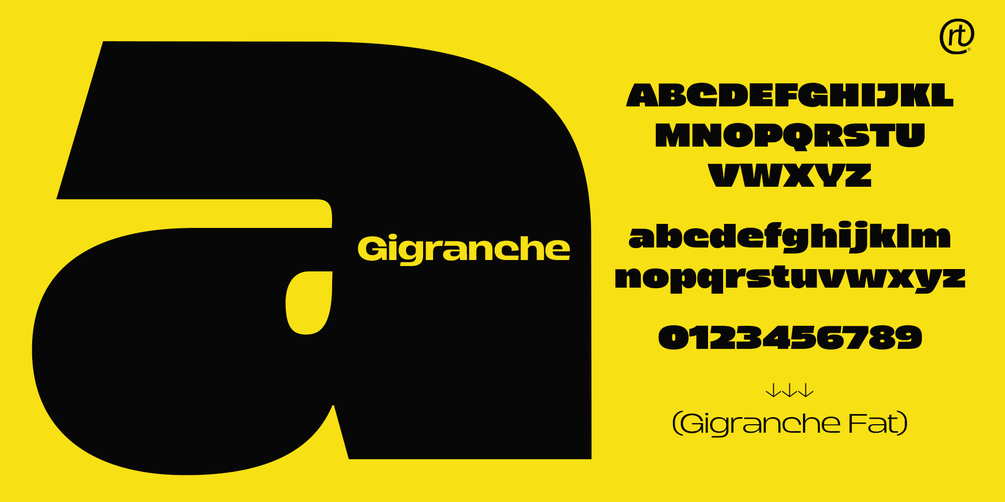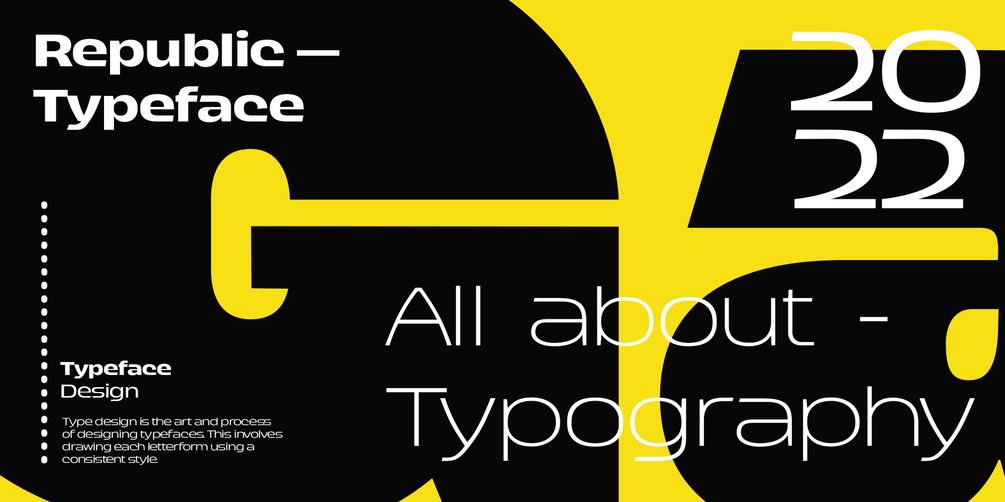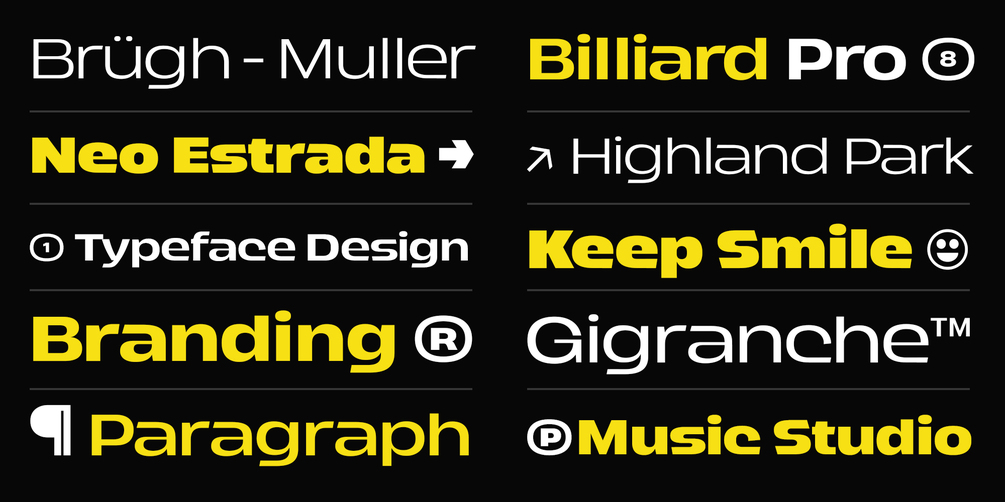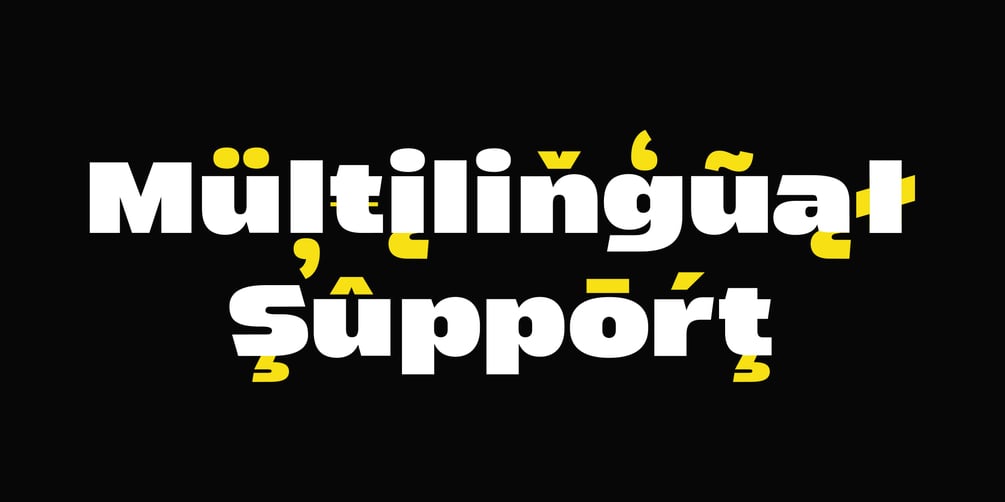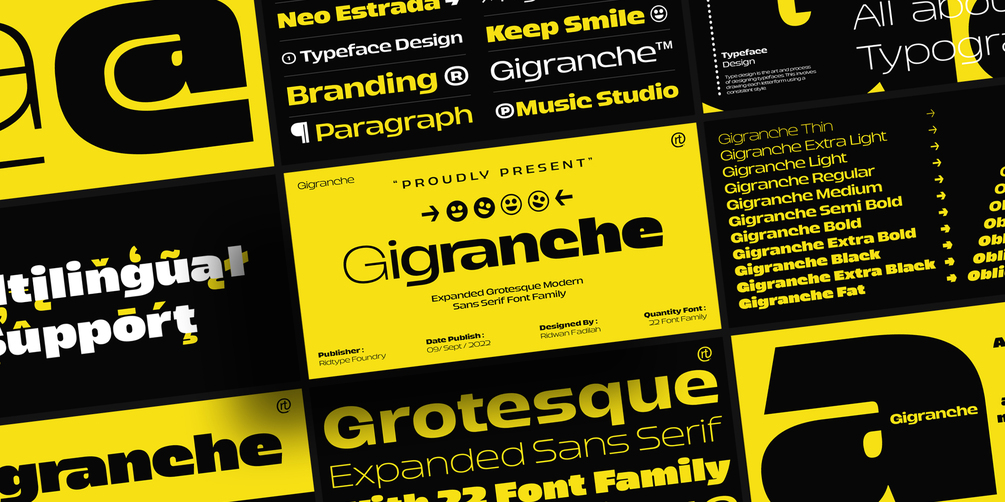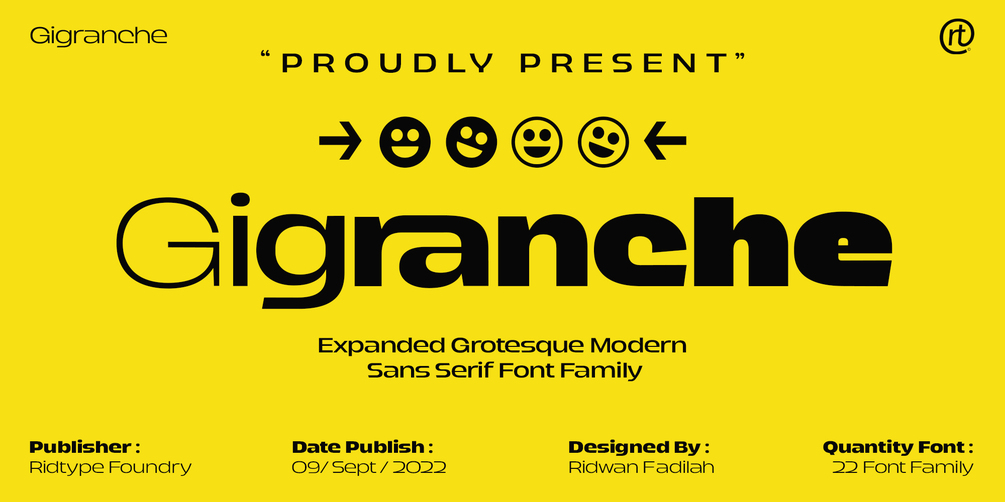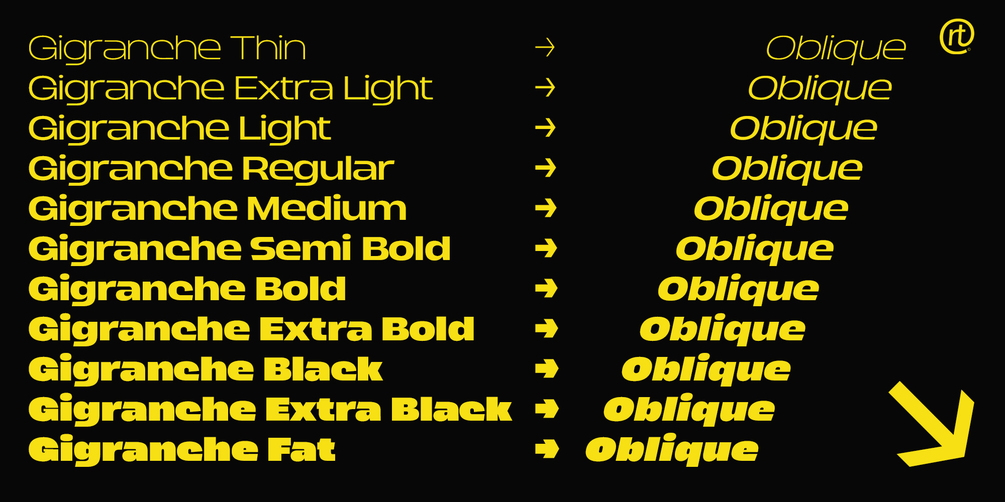
Gigranche Font Family
Gigranche font family is Expanded Grotesque Modern sans serif and which is where this font is very strong and bold for digital manufacture/ printing industry.
This font is inspired by streetwear (Urbanstreet) which relies on courage, art, and strength.
The Gigranche font also comes with several symbols, fractional numbers and additional glyps from various languages (Multilingual Support).
• Details Font : Expanded Grotesque
• Quantity : 24 Weights Font w/ Oblique